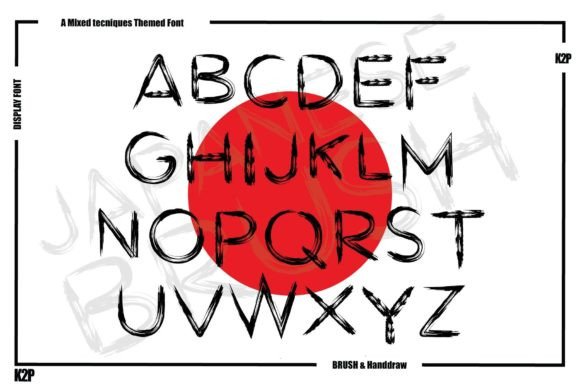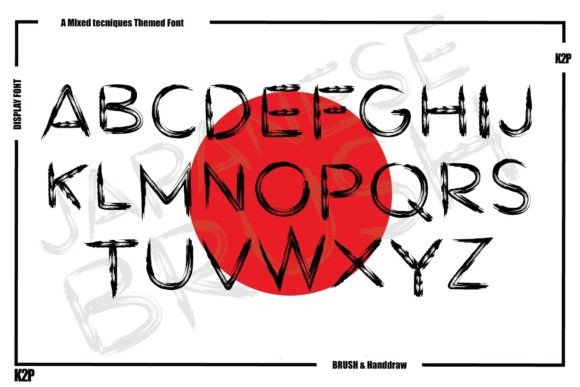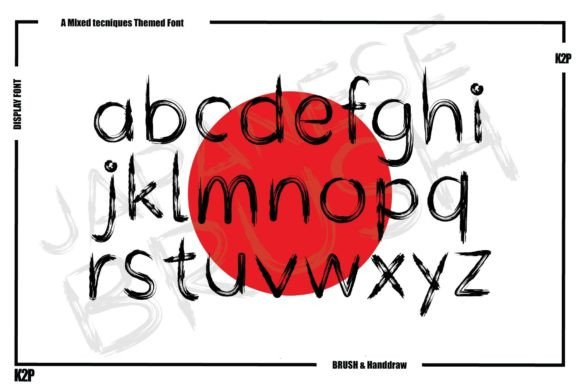
Introduction to Japanese Brush Font
Japanese Brush is a bold, incredibly cool, and assertive display font.
It can be used for various designs related to Japanese culture but not only Have fun with this beautiful font and explore its endless variations.
Key Features of Japanese Brush Font